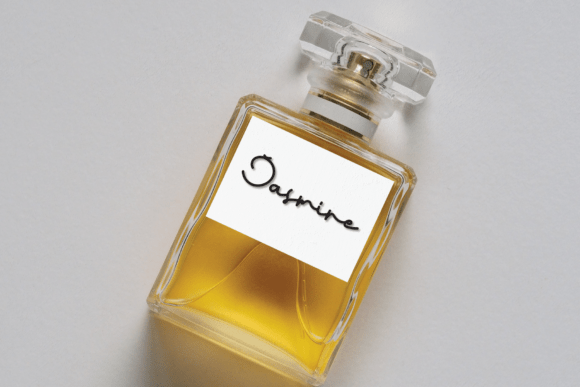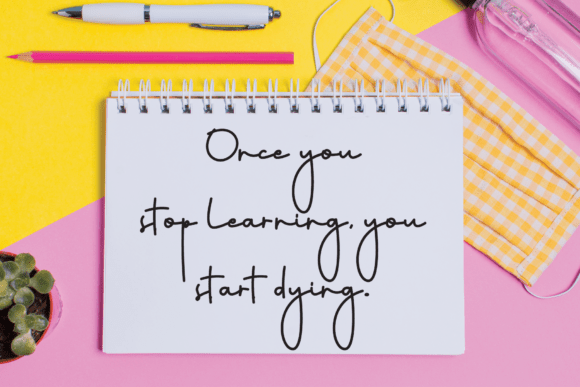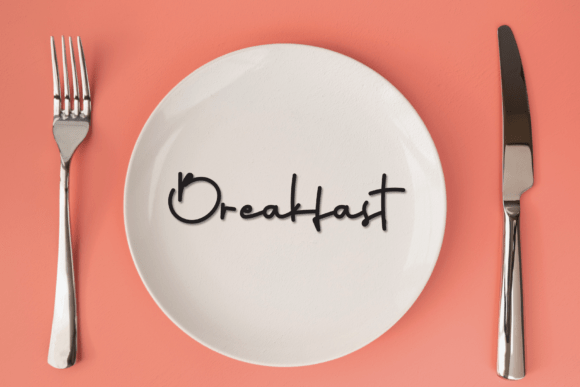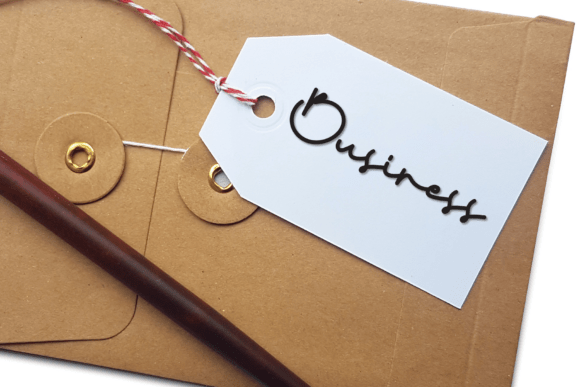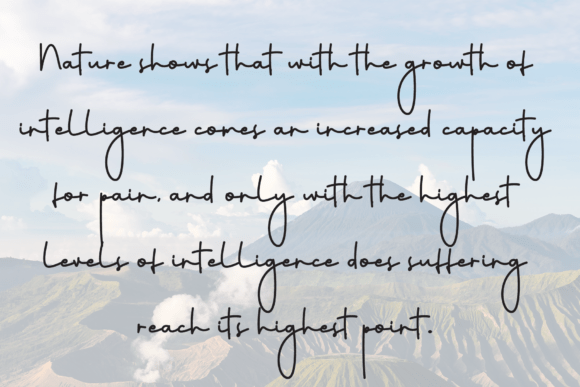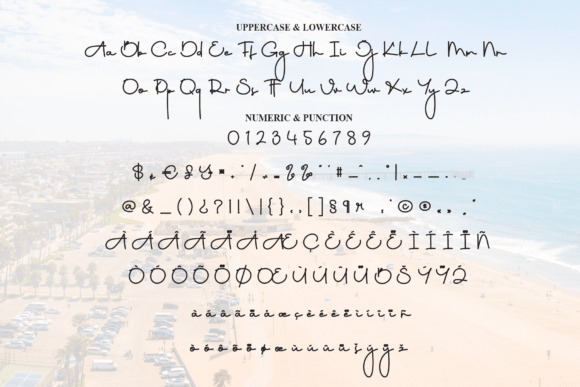
Unleashing the West Coast Vibes: California Font
Have you ever found yourself doodling in a notebook, lost in the rhythm of flowing lines and curves? For many creatives, those moments of scribbling are where inspiration strikes. It’s in these carefree moments that the essence of California Font comes alive – a stylish script font that embodies the free-spirited and artistic essence of the West Coast.
California Font is a versatile tool for designers looking to add a touch of sophistication and elegance to their projects. Its fluid brush strokes, dynamic curves, and expressive letterforms evoke the feeling of hand-painted calligraphy with a modern twist. Perfect for logos, invitations, packaging, and social media graphics, this font delivers both visual impact and versatility, making it a valuable asset for designers seeking to elevate their designs.
California Font Key Features
- Unique Characteristics: The California Font features a distinctive, modern script design with a relaxed, casual feel, making it ideal for creative and informal projects.
Designer Review: California Font
First impressions matter, and California Font certainly delivers on the laid-back vibe ✨. The script font’s flowing connections and smooth curves evoke the essence of California’s sun-kissed coastline. It’s perfect for any design project that needs a touch of effortless cool.
The font’s versatility is another highlight ✨. It works well for logotypes, headings, and even body text. The varied font weights and styles provide ample opportunities for creative expression. Additionally, the font’s legibility is excellent, making it suitable for a wide range of applications.
- Effortless, laid-back vibe
- Perfect for logotypes, headings, and body text
- Excellent legibility
- Versatile font weights and styles
- Some characters may appear too fluid, making them difficult to read at small sizes ⚠️
- May not be suitable for formal or conservative designs
Overall, California Font is a solid addition to any designer’s toolkit. Its unique personality and adaptability make it a great choice for a wide range of projects. While it may not be perfect for every situation, it’s certainly worth considering for designs that need a touch of California cool.
California Font Practical Application Guide
California Font is commonly used in:
- Signage and wayfinding systems.
- Editorial and publishing design.
Remember to use the font consistently throughout your design to create a cohesive and recognizable brand identity.